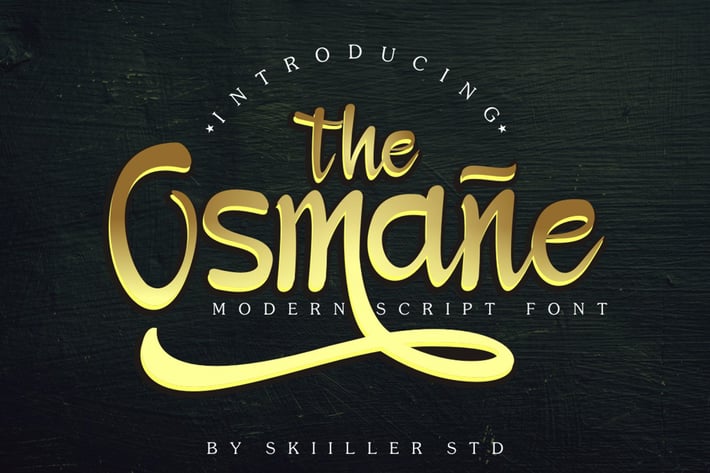
Osmane Script Font
Osmane is a beautiful script type script designed with a neat concept, , even businesses, companies, clothing, and much more
Stylistic alternate for lowercase\
Basic Latin Language Support